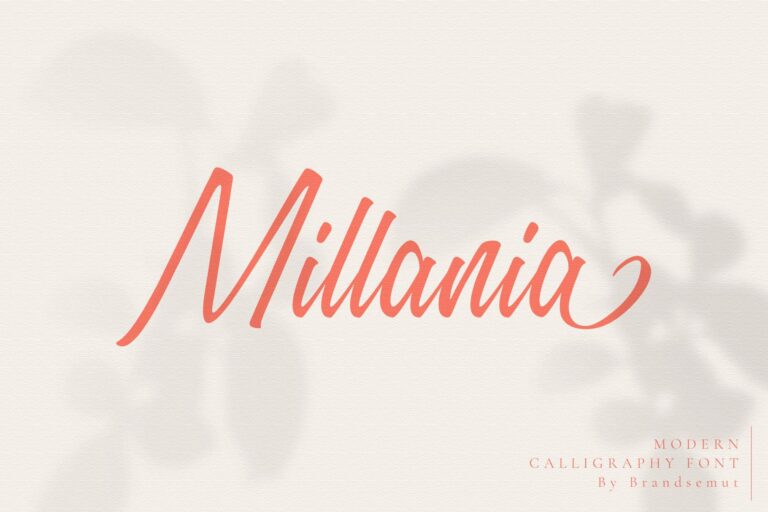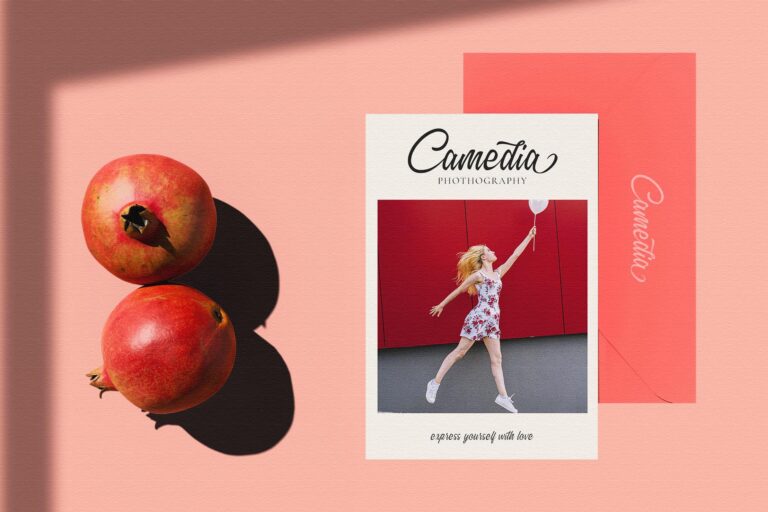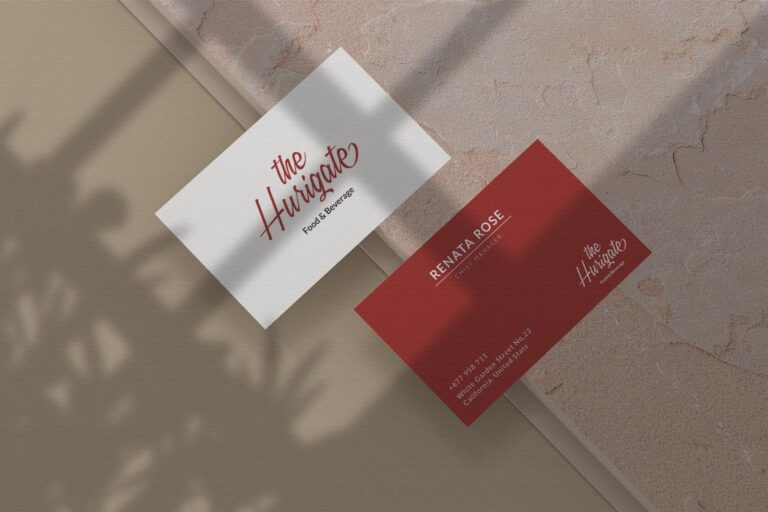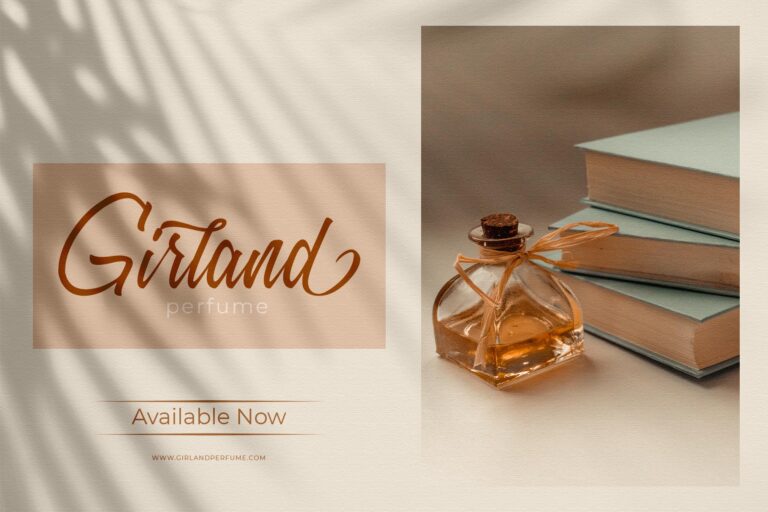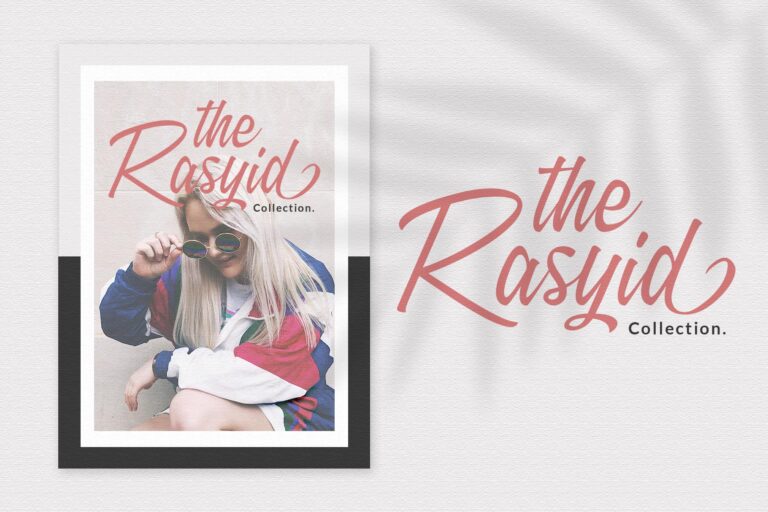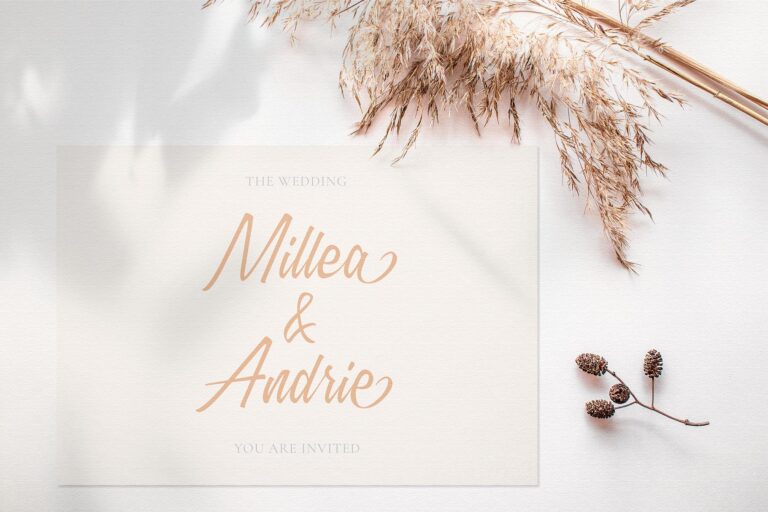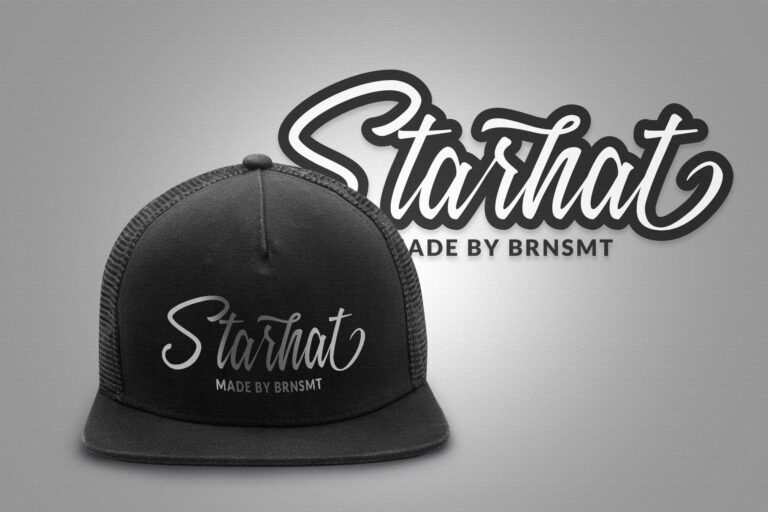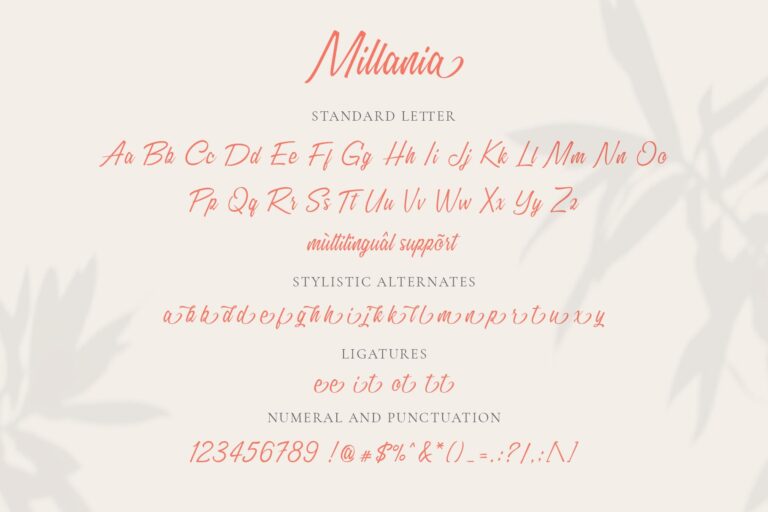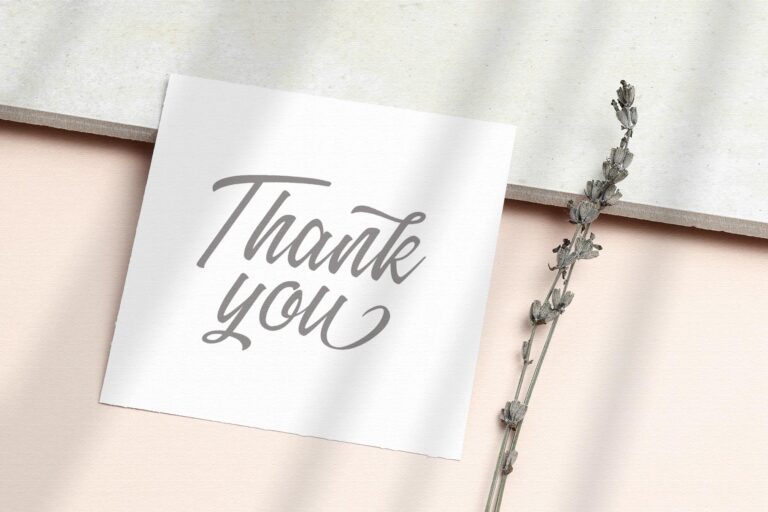
- Millania || Modern Script Font
Introducing Millania || Modern Script Font !!!
Millania was built with OpenType features and includes ligatures, numbers, punctuation, alternate, swashes and it also multilingual support.
Millania script fonts let you create wedding invitations, wedding stationery, DIY, wrappers, fashion textile patterns, textures, posters, wedding decorations, gifts, quotes, blogs, wallpapers, stickers, etc.